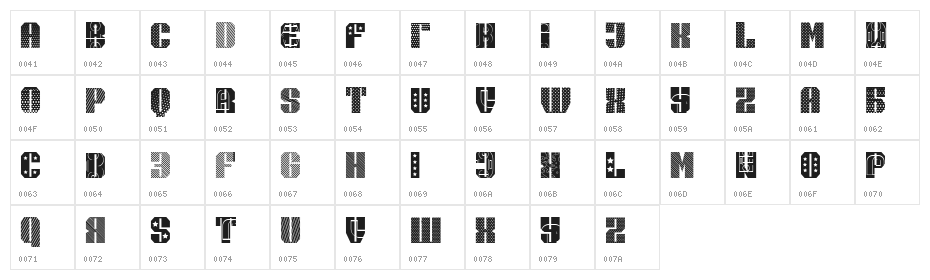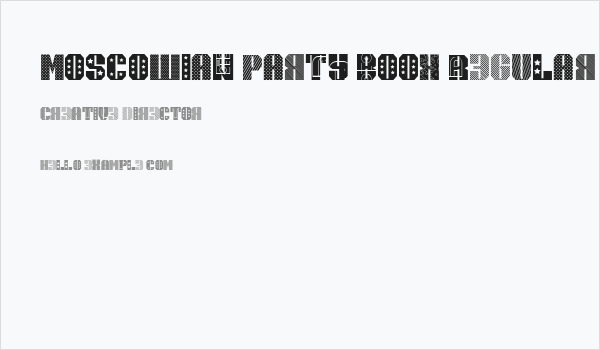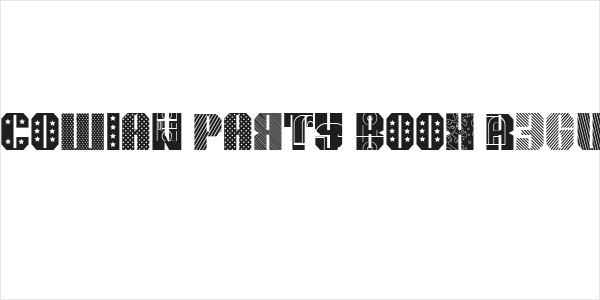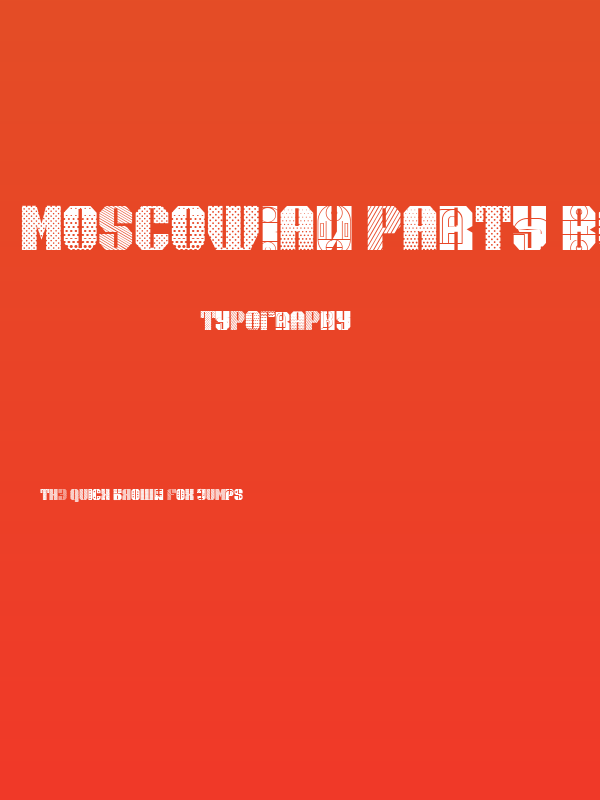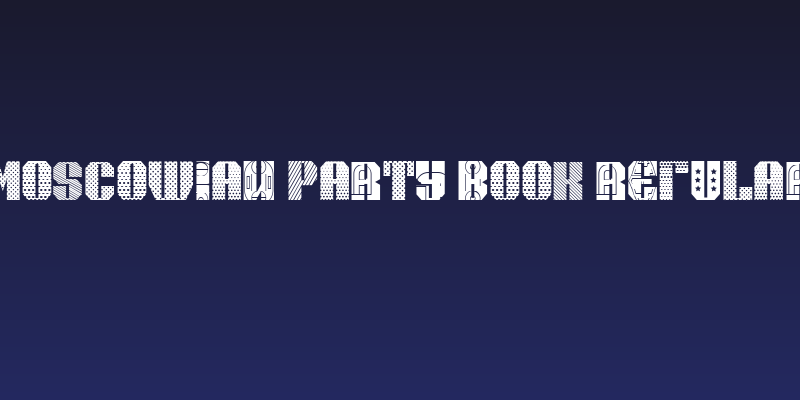
Moscowian Party Book Regular Font
Moscowian Party Book Regular Description
This font is a vibrant and eclectic display typeface that features a variety of patterns and textures within each character. The uppercase and lowercase letters are filled with stripes, dots, stars, and other geometric designs, creating a playful and dynamic appearance. The bold and blocky letterforms are designed to capture attention, making them ideal for eye-catching headlines or creative projects. Each character is uniquely styled, contributing to a sense of movement and energy. The font's decorative nature makes it suitable for festive or themed designs, where a lively and unconventional look is desired.
| Proposed Projects | Ideal for party invitations, event posters, children's book covers, and any project requiring a fun and energetic typeface. |